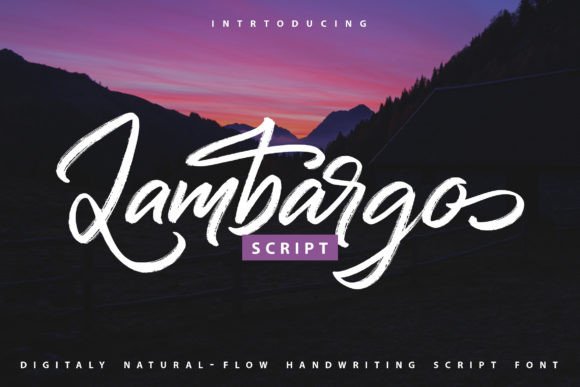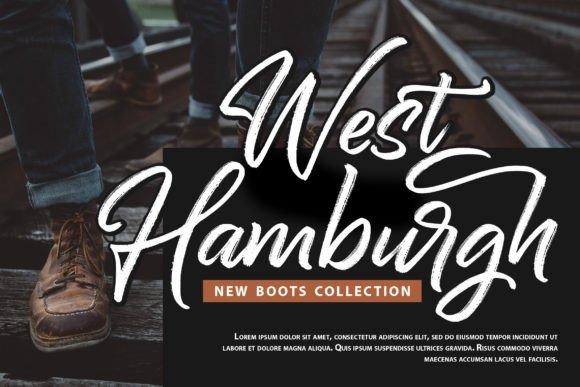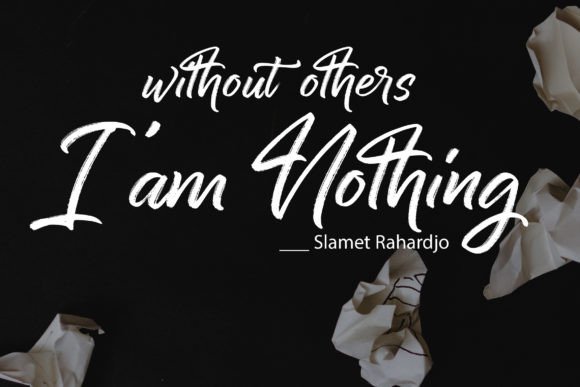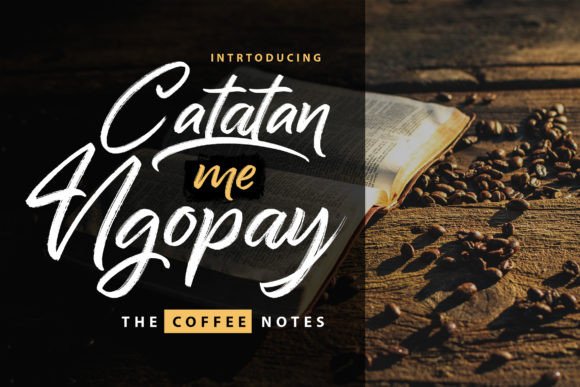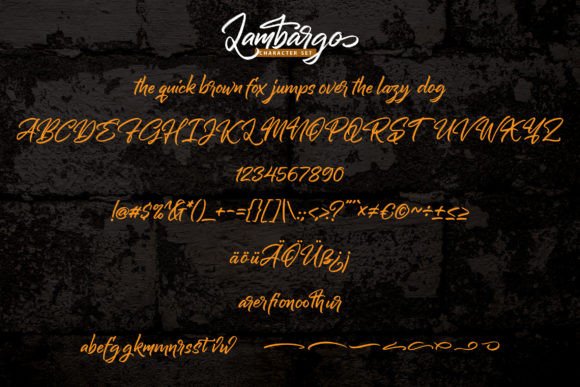
Lambargo Font
The Lambargo Font Download is a flowing handwritten brush script that blends elegance with creativity. Designed to enhance both professional and personal projects, this font offers a timeless aesthetic that feels fresh and authentic. Whether you are working on branding, stationery, or digital layouts, Lambargo brings sophistication and versatility to your designs.
A Flowing Handwritten Brush Script
The Lambargo script font features elegant brush strokes that balance modern energy with classic handwriting. As a result, it feels bold yet approachable. Furthermore, its smooth flow makes it suitable for both small text and large displays, ensuring your projects always stand out.
Handwritten fonts always add warmth and personality to stationery. The Lambargo Font is ideal for wedding invitations, thank you cards, holiday greetings, and event announcements. Because of its distinct brush strokes, every card feels polished and unique. In addition, it ensures your designs leave a memorable impression.
Branding and Logo Design with Lambargo Font
Typography defines a brand’s identity. The Lambargo handwritten font is a perfect fit for boutique logos, packaging, and product labels. Its elegant brush style makes businesses appear creative and stylish while maintaining professionalism. Therefore, it works especially well for fashion, lifestyle, and artistic industries.
Posters, Quotes, and Editorial Use
The Lambargo Font Download also shines in posters, book covers, magazines, and inspirational quotes. Its natural brush flow ensures readability while adding expressive charm. Consequently, it is an excellent choice for editorial projects, social campaigns, and artistic displays.
In the digital era, fonts must adapt across platforms. The Lambargo typeface integrates smoothly into Instagram graphics, YouTube thumbnails, Pinterest posts, and blogs. Because of its handwritten brush elegance, it adds character and energy to any online project.
Why Designers Choose Lambargo Typeface
Designers value fonts that merge beauty with practicality. The Lambargo handwritten script offers both elegance and readability. Its handcrafted brush strokes make it versatile enough for hobbyists and professionals. Moreover, its timeless look ensures it remains stylish across future projects.